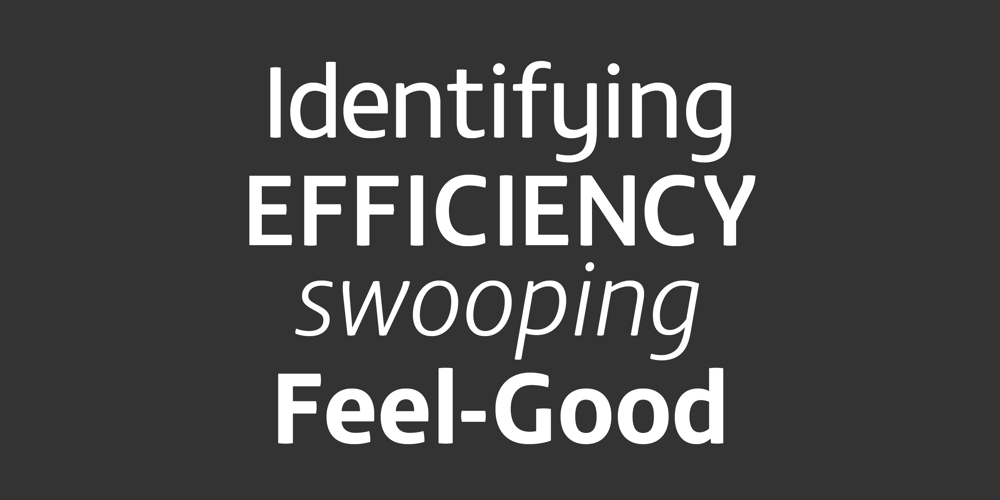
FS Matthew Font Family was designed by Jason Smith and published by Fontsmith. FS Matthew contains 8 styles and family package options. Developed for screenFor not the first time, Fontsmith was commissioned to develop a font for one of the UK’s terrestrial TV channels. The product was a clearly-defined three-weight family. When italics were added, it became FS Matthew, a clean, stylish, structured sans serif with swooping, open curves and a bright, lively personality.SouthbankInspiration for many of the forms of FS Matthew came from details found within the modernist buildings and architecture of London’s Southbank, such as the Royal Festival Hall. During the font’s gestation, Jason had found himself at London Studios, a TV studio on Southbank, and a wander around the neighbouring arts buildings proved thought-provoking. The result was a font with a very British character: solid forms that provide the platform for innovation and distinctiveness.Feelgood efficiencyFS Matthew’s trademark is efficiency with a feelgood factor: disciplined enough for corporate identities, websites and signing systems, and colourful enough for logotypes and advertising.Its versatility and excellent legibility are achieved via some unexpected details: the reaching curves of the “g” and “y”; the simple shape of the “u”; an off-kilter “k”; generous counters; and a slightly condensed aspect that makes FS Matthew a space-saver in text or title sizes.